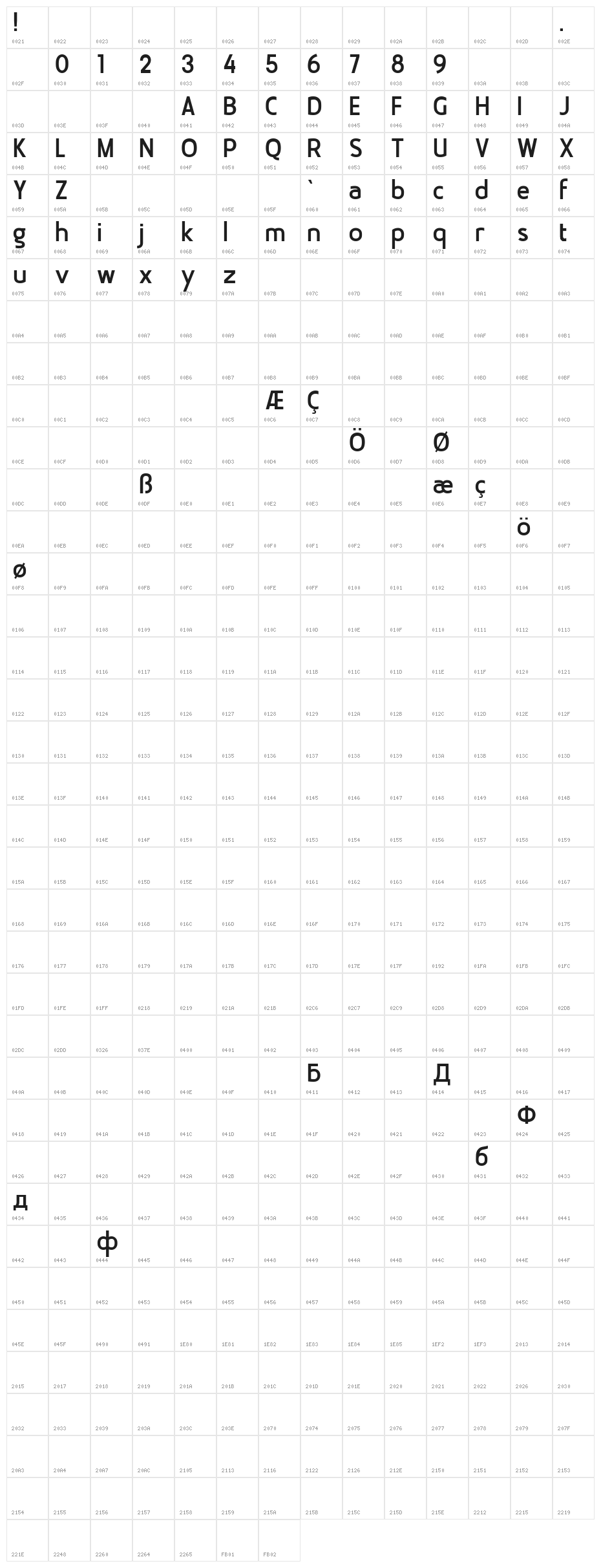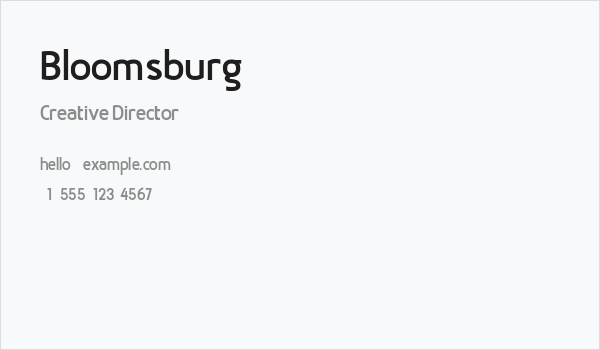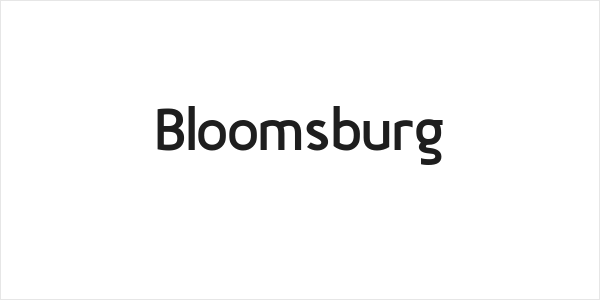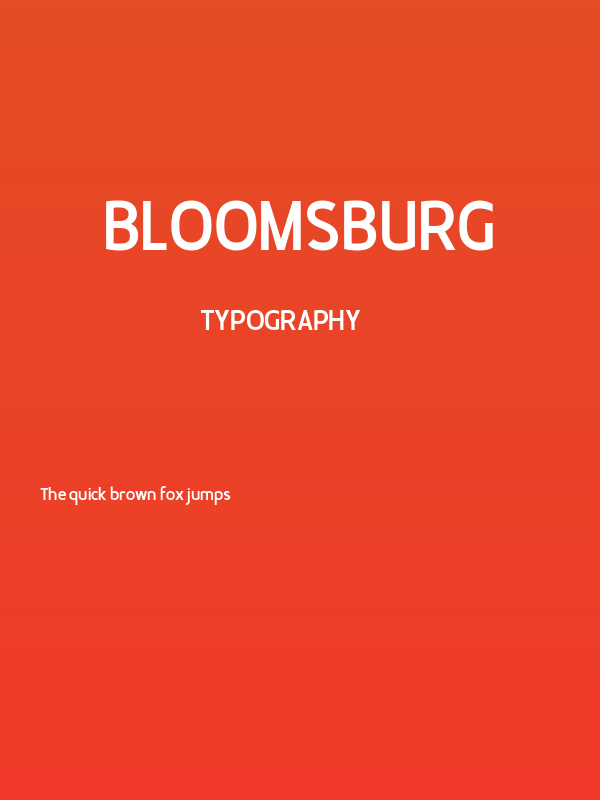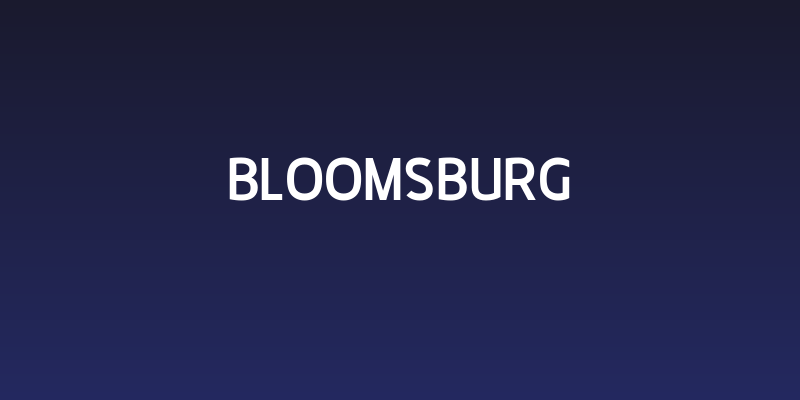
Bloomsburg Font
Bloomsburg Description
This font features a clean and modern sans-serif style with a geometric structure. The characters are well-balanced, offering a harmonious appearance that is both professional and approachable. The uppercase letters are bold and assertive, while the lowercase letters maintain a friendly and inviting tone. The numerals are clear and legible, making them suitable for various applications. The overall design is versatile, suitable for both digital and print media. Its simplicity and clarity make it an excellent choice for conveying information effectively.